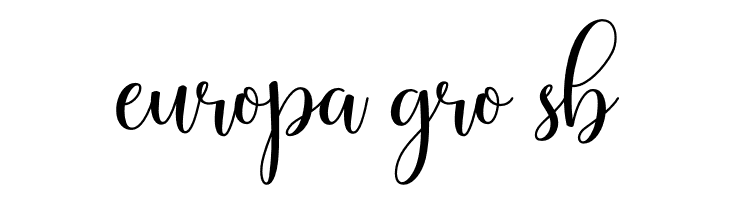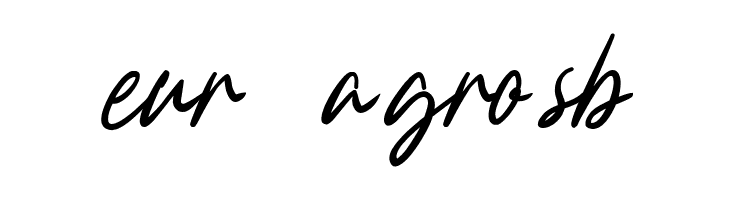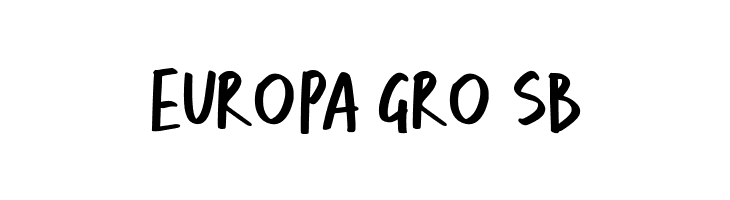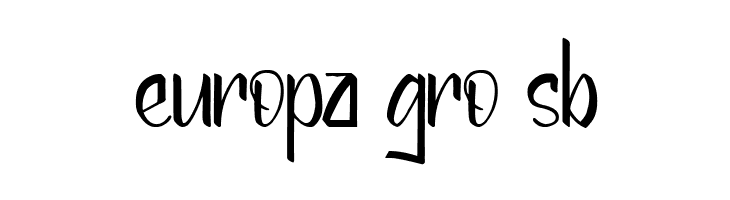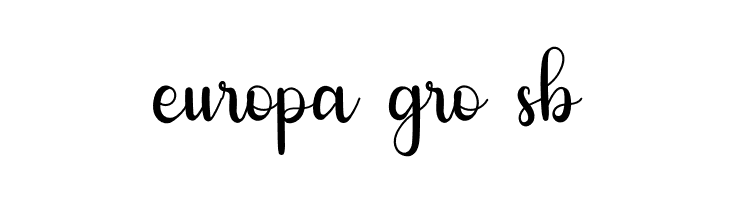
An elegant, flowing script font with interconnected characters and graceful curves.
A lively, cursive script font with smooth, interconnected strokes.
A flowing, cursive font with elegant, thin strokes and dynamic flair.
A dynamic and fluid script font with elegant, flowing letterforms.
A bold, playful handwritten font with a casual and dynamic style.
A decorative and whimsical font with elegant, swirling serifs and artistic flair.
An artistic and decorative font with flowing, interconnected strokes and elegant swirls.
A dynamic and flowing script font with elegant, artistic curves.
A flowing, cursive script font with elegant curves and loops.
A whimsical and artistic font with flowing, exaggerated curves and strokes.